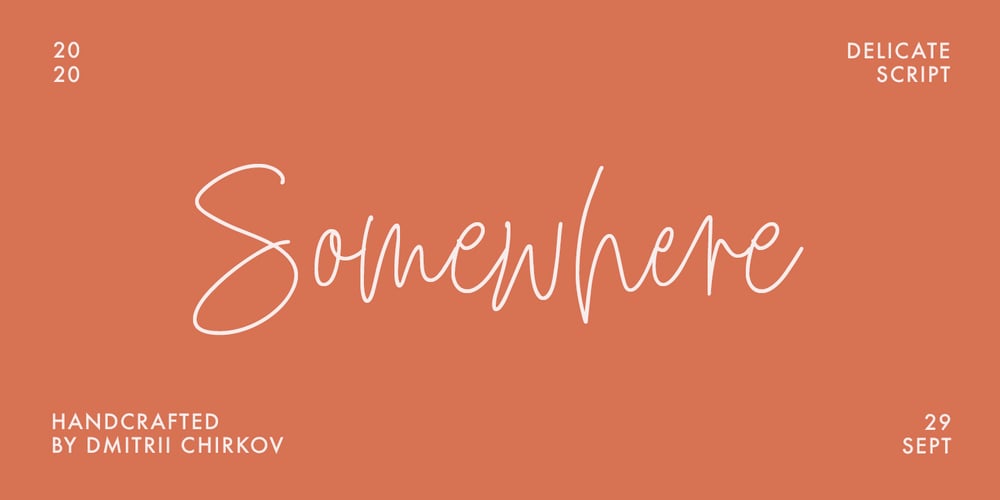
Somewhere
Somewhere font
Somewhere Font Family was designed by Dmitrii Chirkov and published by Supfonts. Somewhere contains 1 styles and family package options. Somewhere Delicate ScriptSomewhere is a delicate handwritten font with multilingual support. It is perfect for branding, wedding invitations, menu design, YouTube covers and many moreFont includes a full set of gorgeous uppercase and lowercase letters, numbers, a large selection of punctuation marks & multilingual supportTest it out below to see how it could look for your next project!Includes: Regular Script Multilingual languages support Uppercase and lowercase Numbers and punctuation Check out my blog: https://www.instagram.com/superdizigner https://pinterest.com/dmitriychirkov7